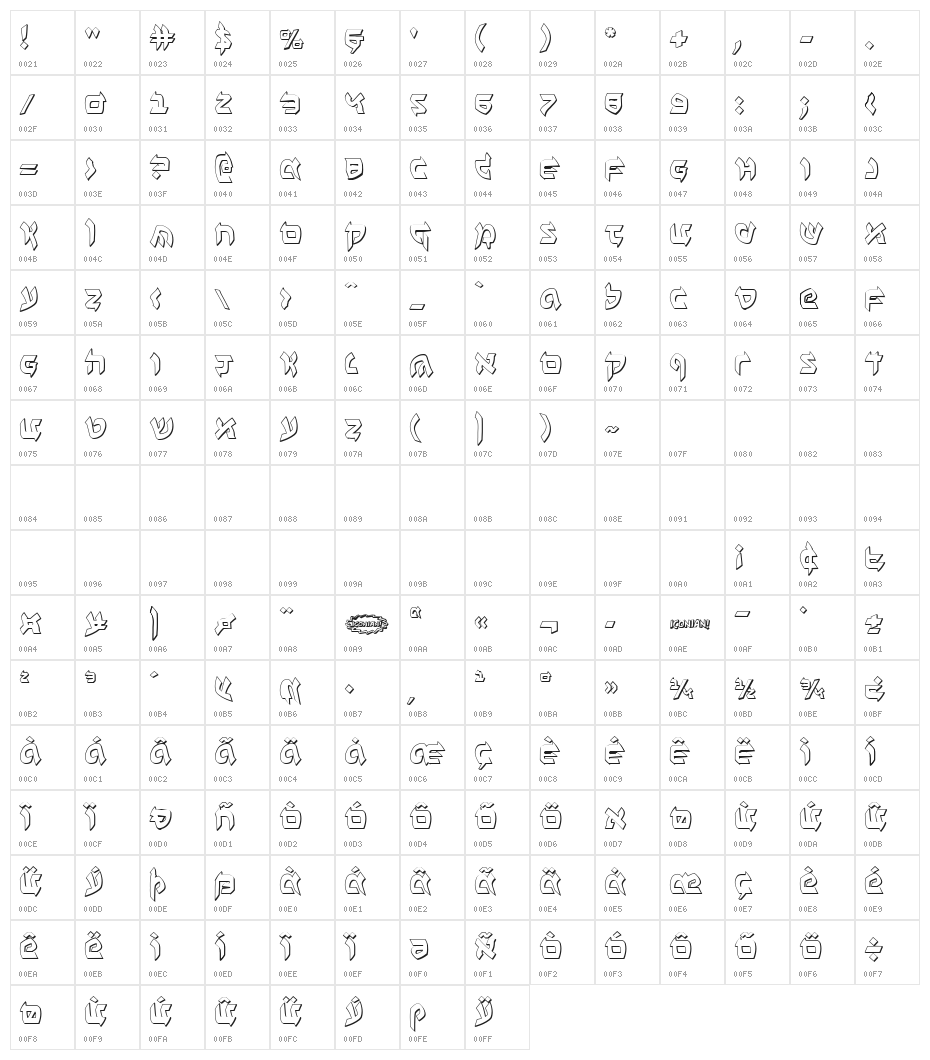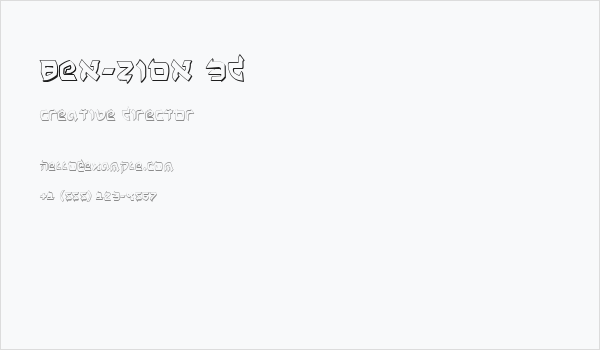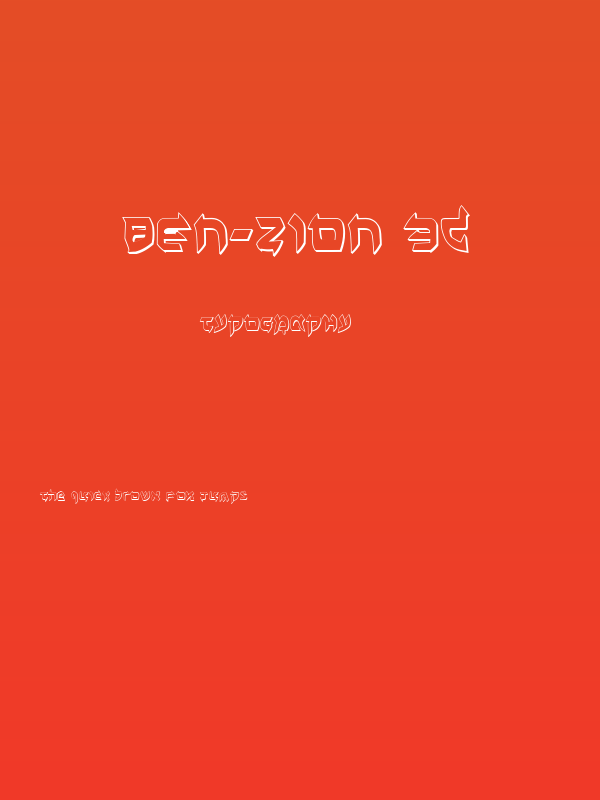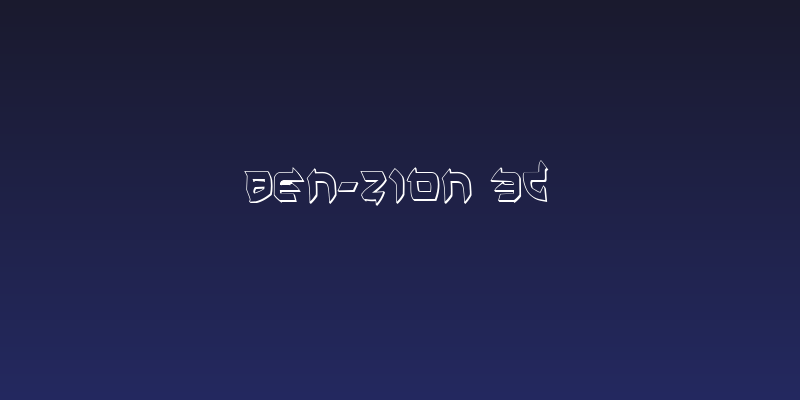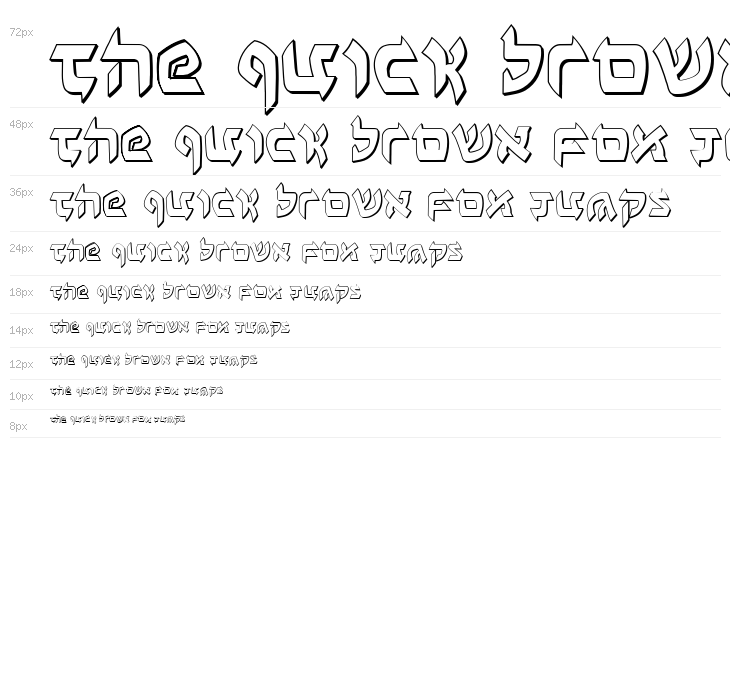
Ben-Zion 3D Font
Ben-Zion 3D Description
This font features a bold, three-dimensional design with sharp, angular edges and a futuristic aesthetic. The characters are outlined, giving them a hollow appearance that enhances the 3D effect. The uppercase and lowercase letters maintain a consistent style, with each character exhibiting a unique geometric form. Numbers and special characters follow the same design principles, ensuring uniformity across the font. The overall look is dynamic and eye-catching, making it suitable for projects that require a modern and edgy feel.
| Proposed Projects | Ideal for sci-fi themed posters, video game titles, and branding that requires a modern, edgy look. |